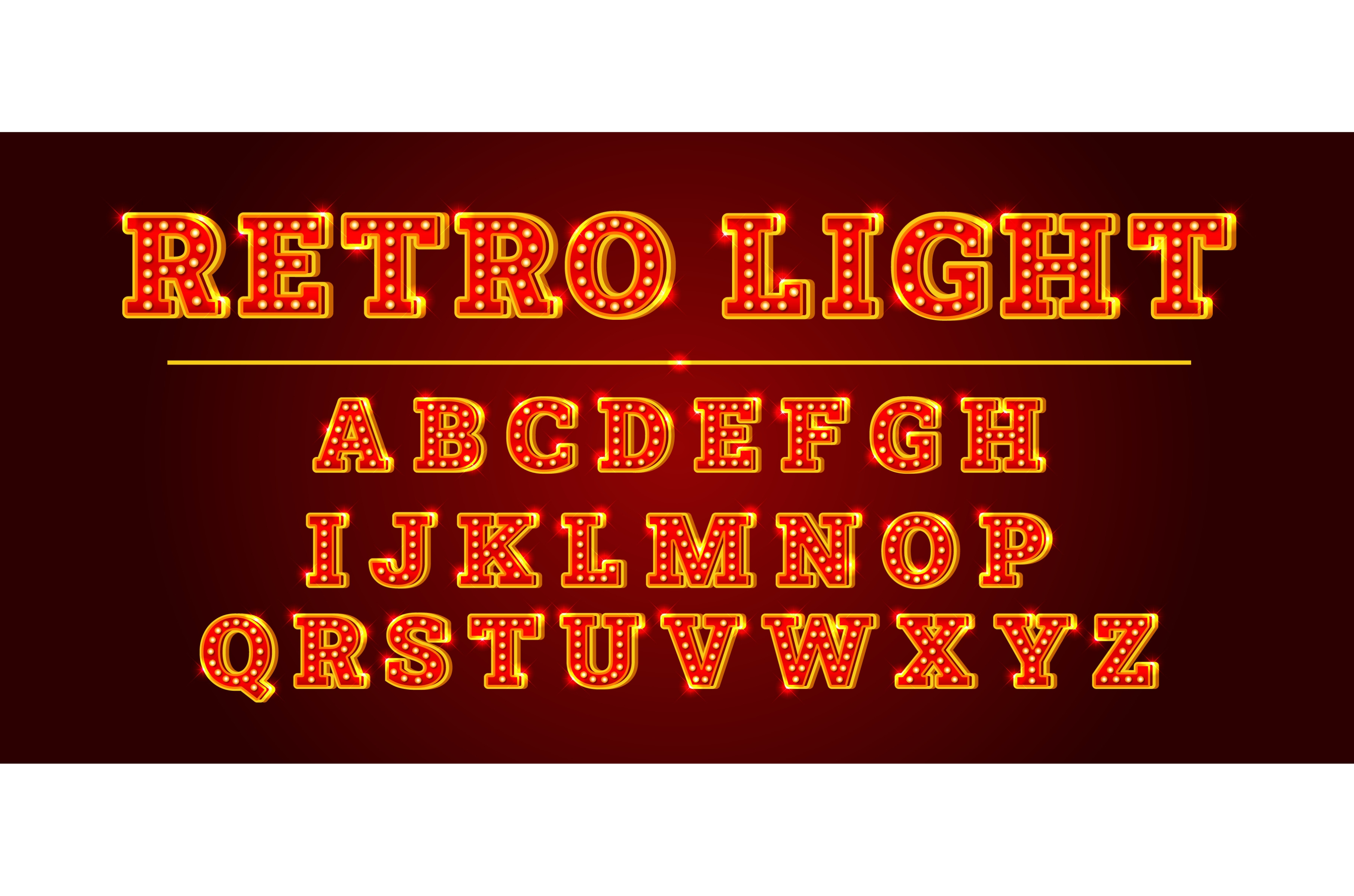
Bulb alphabet. Circus light font
Bulb alphabet. Circus light font effect, retro cinema theater signage marquee lamp broadwey sign typography letters vintage neon casino signboard design, kicky vector illustration original artwork